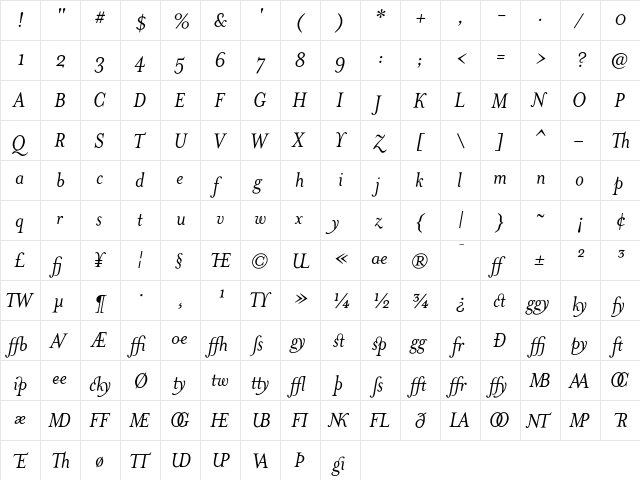
MrsEavesSmartLig Italic
Design Context for MrsEavesSmartLig Typeface
MrsEavesSmartLig offers clean, dependable letterforms without strong stylistic allegiance, making it a practical choice for designers who need flexibility. The dynamic lean of this cut emphasises speed and emphasis in any layout.
Pro Tip: Use MrsEavesSmartLig for emphasis, pull quotes, and subheadings where its slanted energy can add rhythm to the layout.